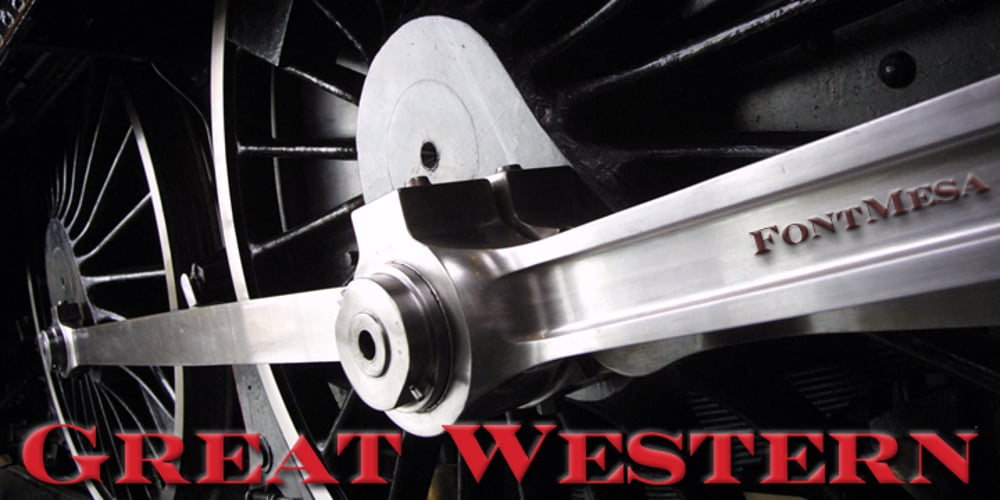
Great Western Font Family was designed by Michael Hagemann and published by FontMesa. Great Western contains 1 styles and family package options. Great Western is an engraved roman font that reminds you of the old railroad days when steam locomotives made their way across the countryside.